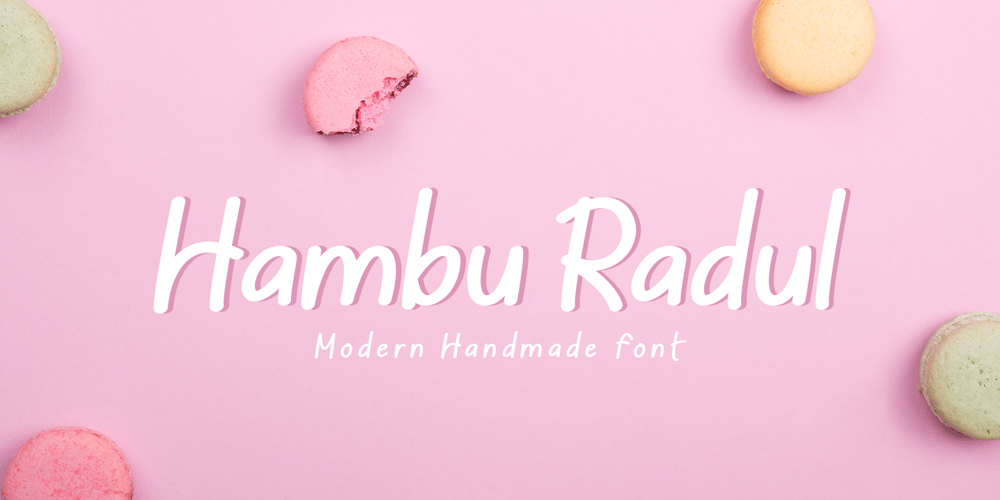
Hambu Radul Font Family was designed by Muhammad Khoirul Amal and published by CBRTEXT Studio. Hambu Radul contains 1 styles and family package options. Hambu Radul is a modern handmade font that is fun and can be used for various graphic design projects such as logotype designs, magazines, t-shirt designs, note designs, quote designs and more.